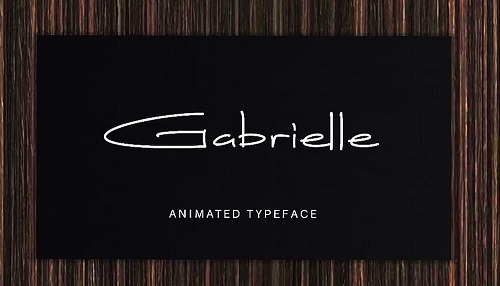
Gabrielle Animated Font is a stylish After Effects template that allows the user to create clean-looking and creatively animated text animations. It includes the
entire English alphabet, special characters and numbers 0-9. It's so easy to use, simply run the script, type your text, pick a color, select a
duration and hit generate text. A fantastic way to enhance the look and feel of your presentations, slideshows, promotions and
events videos. Impress your audience with this neat and dynamically animated AE template. No plugins required.